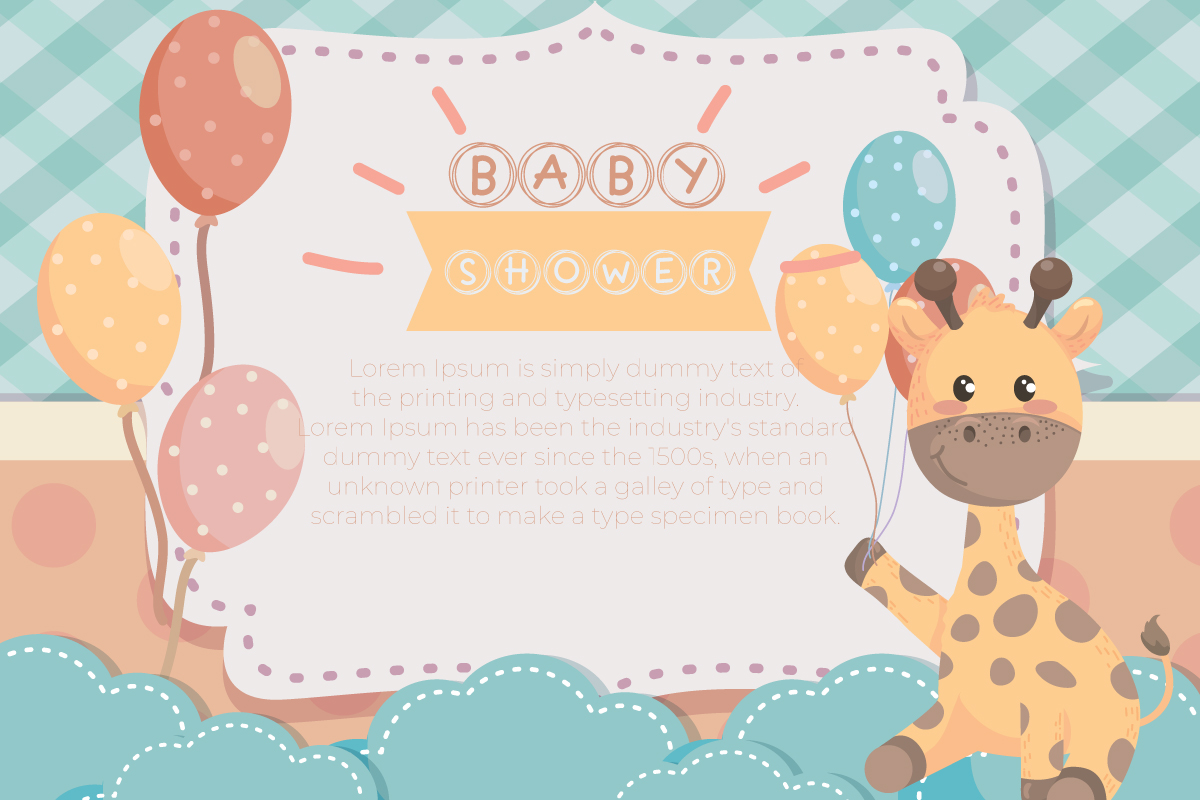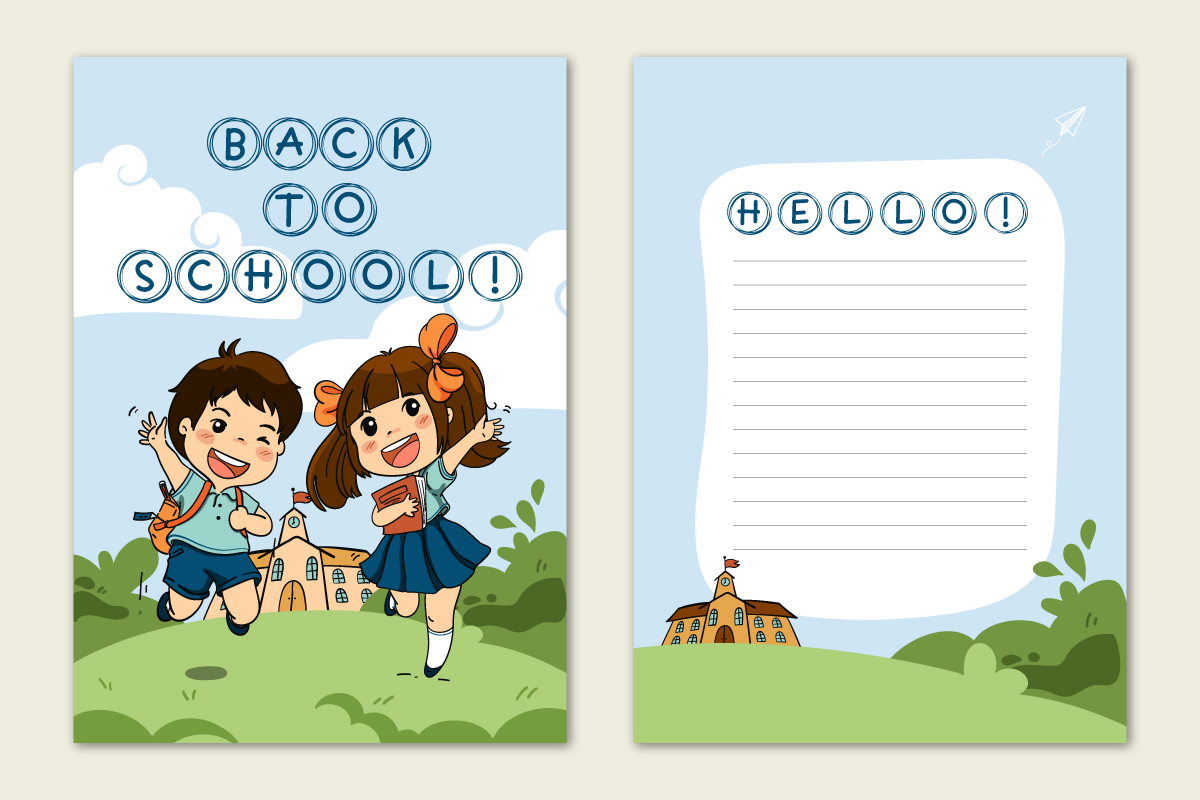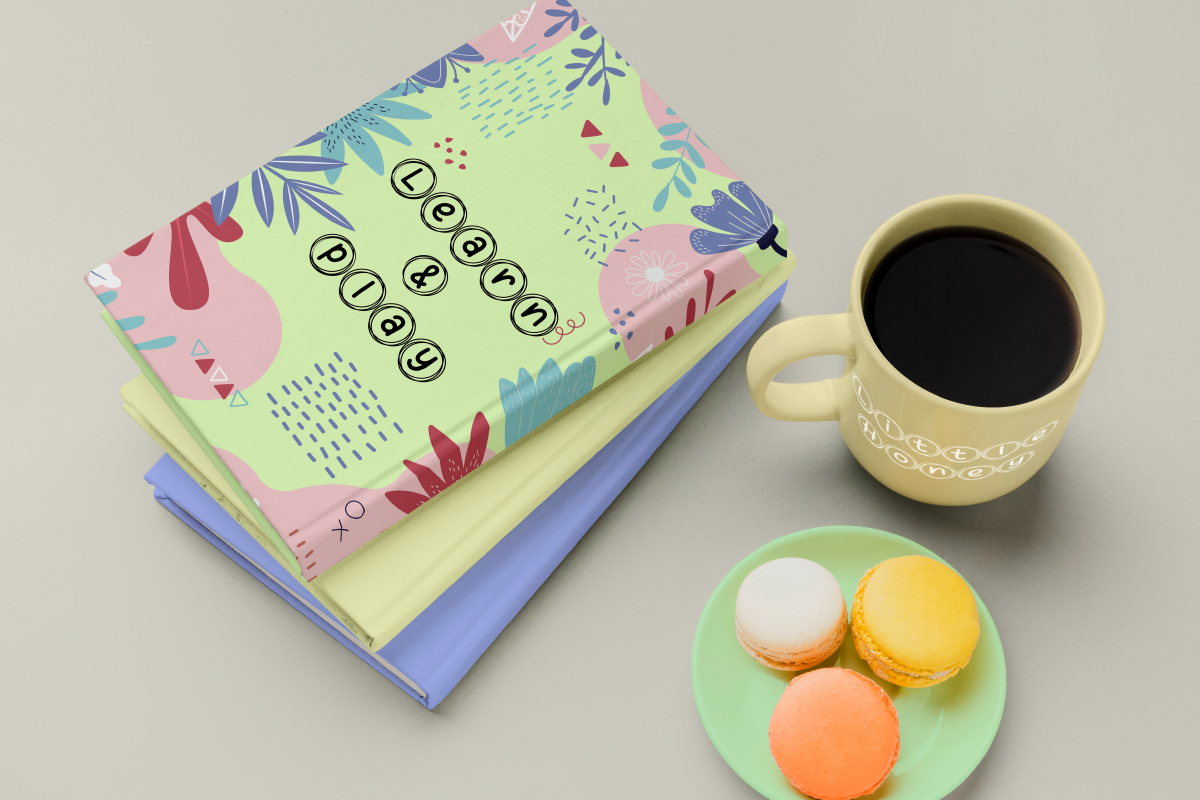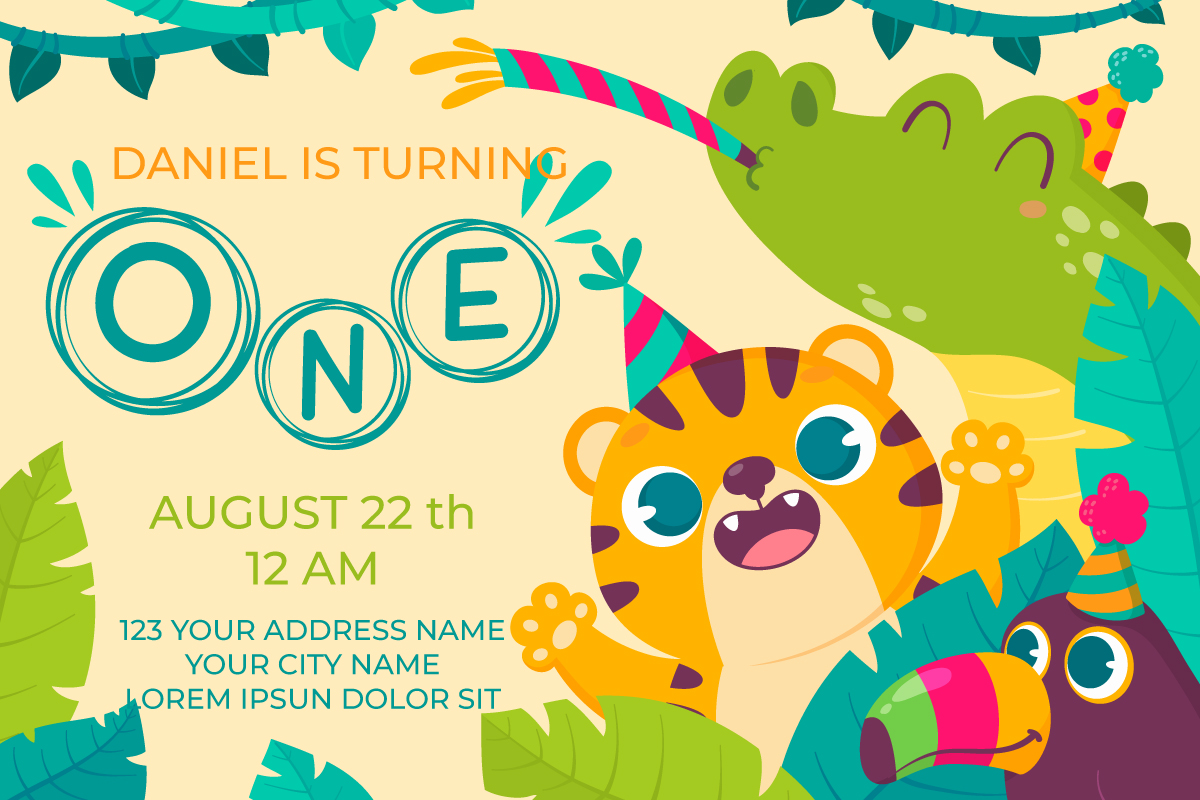
Cute Decor Font
Cute Decor Display Font
It’s a decorative display font. The font is handwritten monoline with a circle on each letter, making it simple and unique. This font works for businesses or companies such as, fashion, games, kids, school, writers etc.
It includes a set of Uppercase and Lowercase Basic Characters, Numerals and Punctuation. The font is perfect for many projects, book cover, logo branding, invitation, photography, product packaging, signage, titles and many more!